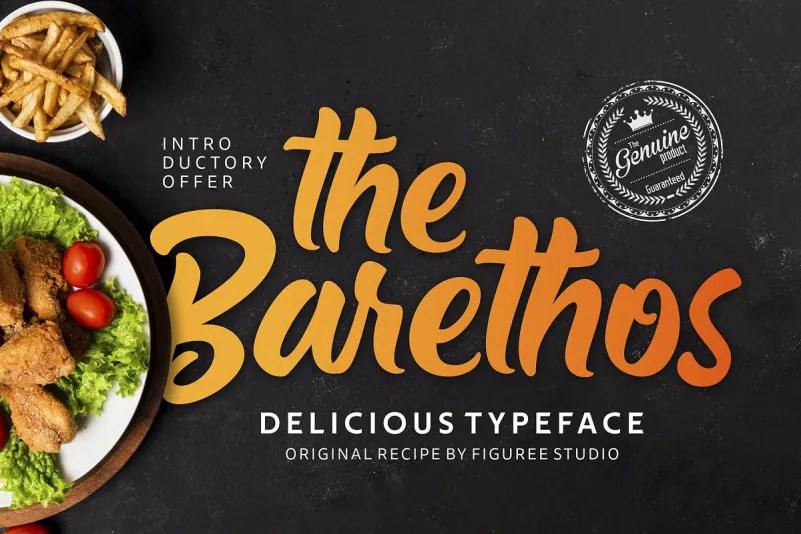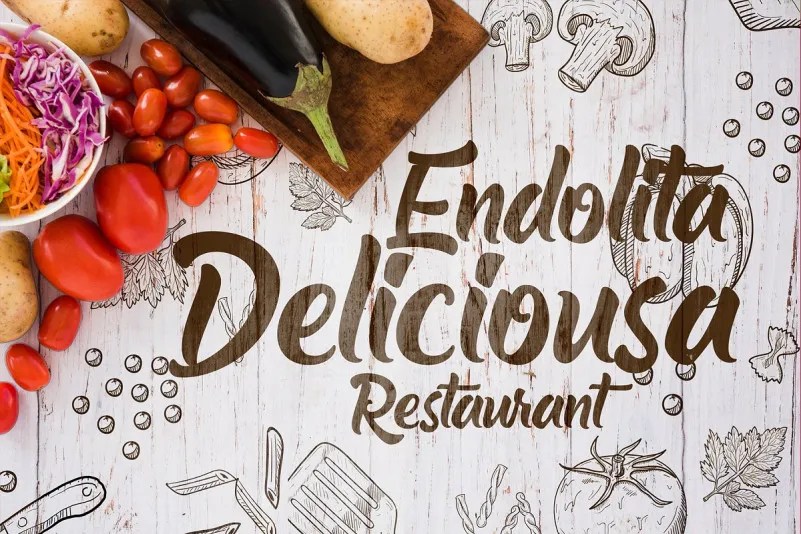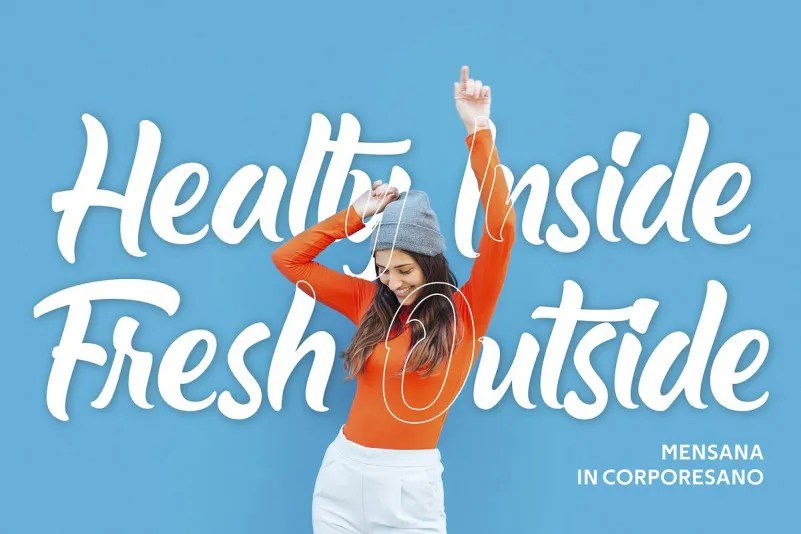
The Barethos Script Font
This is a new lovely bold script font, a font inspired by the sturdiness yet abstract strength of the boulder, unique handwritten, suitable for nature and outdoor theme. Introducing The Barethos Font. It’s designed and shared by figuree studio. Fresh from the oven!! It’s a Delicious display font inspired by tasty food. Its unique character is very suitable for logos, packaging, branding, and other creative design needs. Very suitable combined with other fonts.